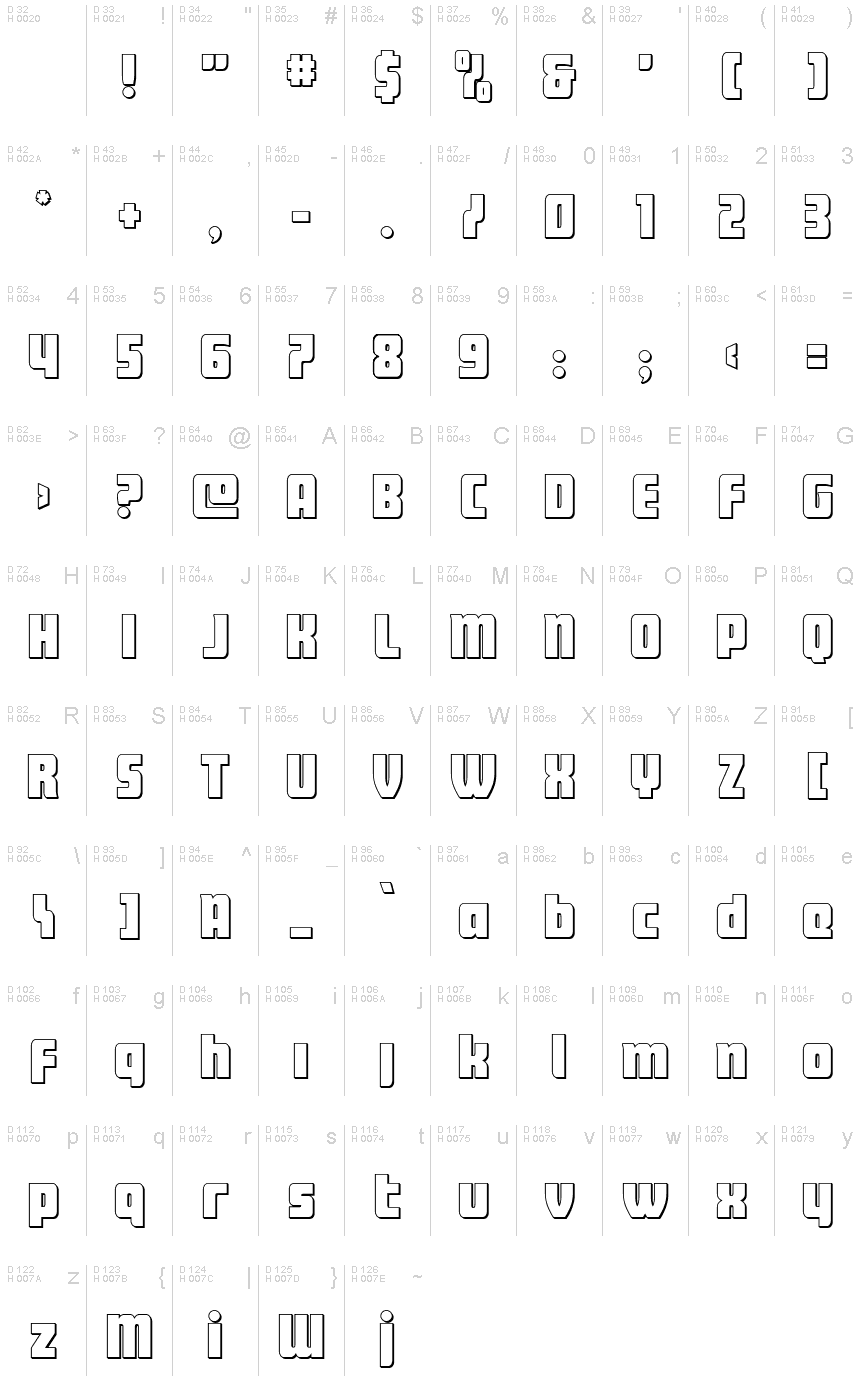
Intrepid Spear LC Straight 3D
Intrepid Spear LC Straight 3D is a dynamic addition to the Intrepid Spear font family, meticulously crafted by Iconian Fonts. This display typeface boasts bold, clean lines with a striking 3D effect that adds depth and dimension to any textual content. The techno style of the font exudes modernity and forward-thinking, making it an excellent choice for projects that aim to stand out.
The compelling shadowing detail in each character enhances its aesthetic appeal, providing a sense of movement and assertiveness. Its bold weight commands attention while maintaining readability—a balance that is often challenging to achieve in more decorative fonts.
With two sub-families at its disposal—Regular and Lower Case—Intrepid Spear LC Straight 3D offers versatility for designers looking to mix and match for visual interest or uniformity as needed. Whether used in headlines, posters, branding, or digital media applications, this font's unique characteristics ensure a powerful impact on your creative endeavors.